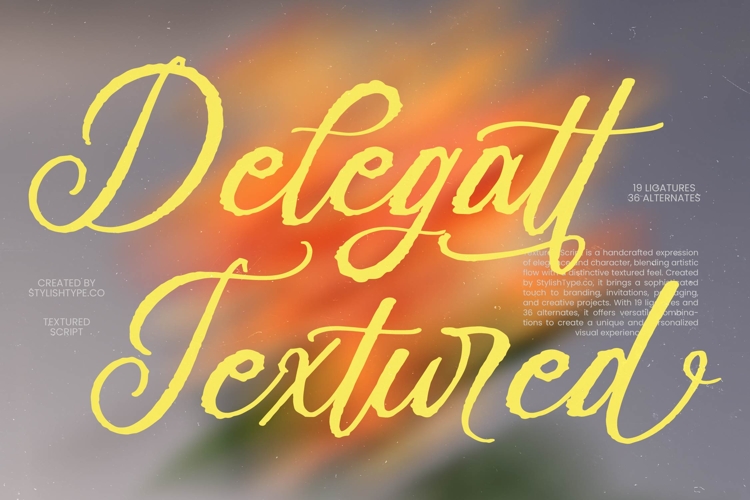
Delegatt Textured - Elegant Textured Script
Elevate your creative vision with the handcrafted expression of Delegatt Textured - Elegant Textured Script. This typeface masterfully blends sophisticated elegance with a raw, distinctive textured feel, providing an organic flow that captures the essence of authentic calligraphy. Its tactile aesthetic adds a layer of depth and character to any layout, ensuring your message stands out with a refined yet gritty personality that is impossible to ignore.
Command attention with unparalleled sophistication in every design project. Delegatt Textured - Elegant Textured Script is the perfect typography solution for luxury branding, premium packaging, and high-end editorial design. Whether you are crafting custom invitations, exclusive logos, or promotional signage, this font delivers a personalized visual experience that resonates with quality and artistic flair, making it ideal for brands seeking a boutique aesthetic.